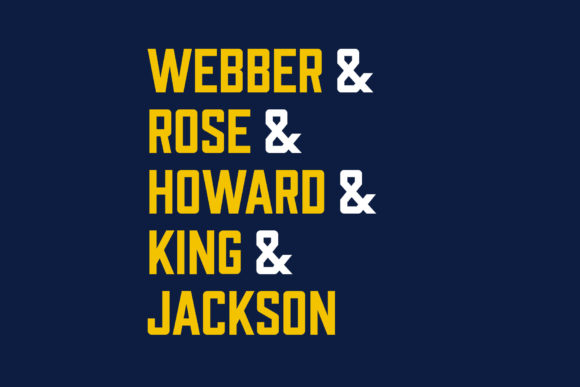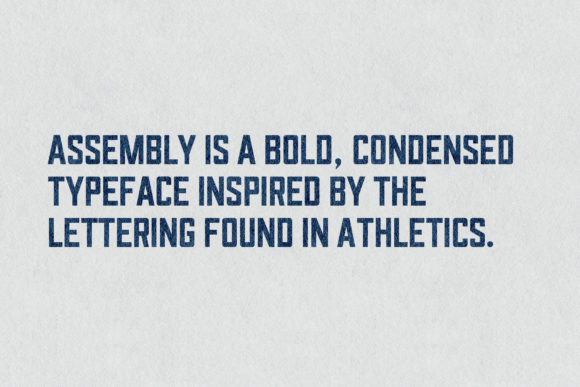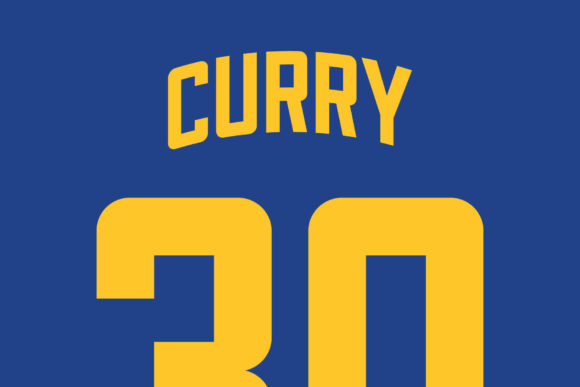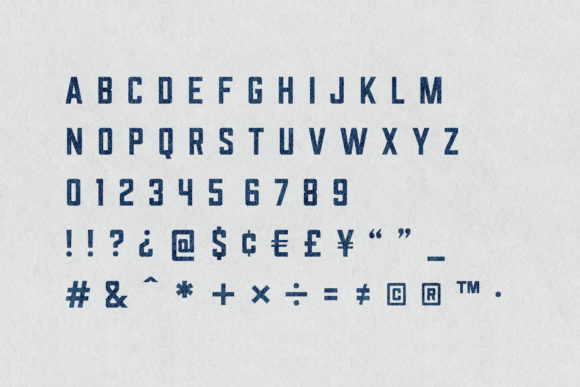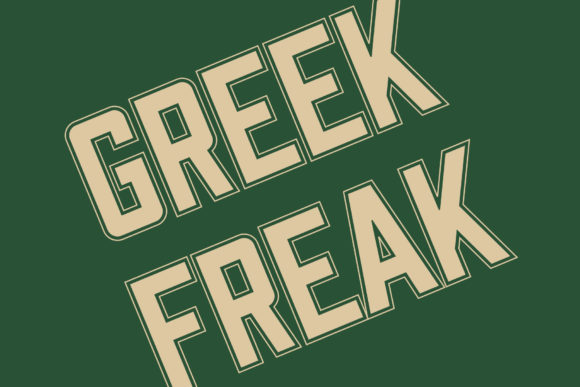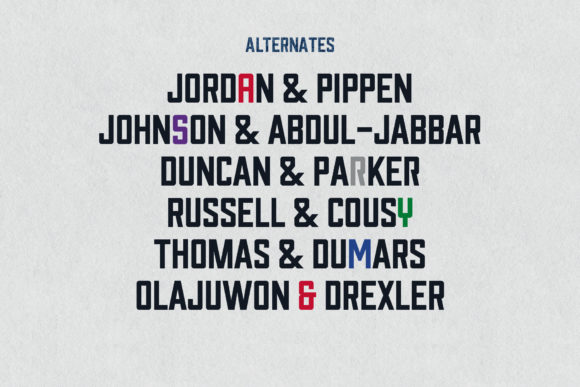
The Perfect Call to Action: How Assembly Font Elevates Your Design
Have you ever stared at a blank design canvas, feeling like you’re stuck in a creative rut? You know, that moment when the cursor blinks at you like a taunting nemesis, daring you to make a move? It’s a feeling we’ve all been there, and it’s precisely those moments when the right font can be the game-changer that sets your project soaring. For designers, finding the perfect font is like discovering a secret ingredient that adds that extra oomph to your design.
Enter Assembly Font, a bold and condensed typeface that’s been inspired by the vintage lettering found in athletics. While it may have originated in the world of sports, this versatile font is equally at home on an album cover, email header, or even apparel. Its adaptability makes it a valuable addition to any designer’s toolkit.
Assembly Font Key Features
- Unique Characteristics: Assembly Font features a unique blend of industrial and futuristic elements, with a focus on clean lines, geometric shapes, and a bold aesthetic.
Assembly Font Review
Overall, I’m quite pleased with Assembly Font. It’s a great addition to any digital project. ✨ The clean lines and modern aesthetic make it a versatile choice for a wide range of applications, from tech startups to lifestyle brands.
- Highly legible, even at smaller font sizes
- Robust character set with extensive language support
- Available in a range of weights and styles to suit different design needs
However, there are some limitations to keep in mind:
- Some users may find the font to be a bit too minimalist, lacking a distinct personality
- The font’s versatility can also make it feel a bit generic or unremarkable in certain contexts
Despite these limitations, I think Assembly Font is a solid choice for designers looking for a clean, modern font. It’s not going to blow you away with its uniqueness, but it’s a reliable and effective option that gets the job done. Overall, I’d give it 4 out of 5 stars.